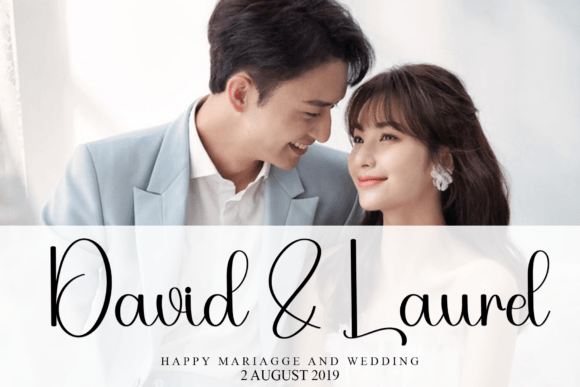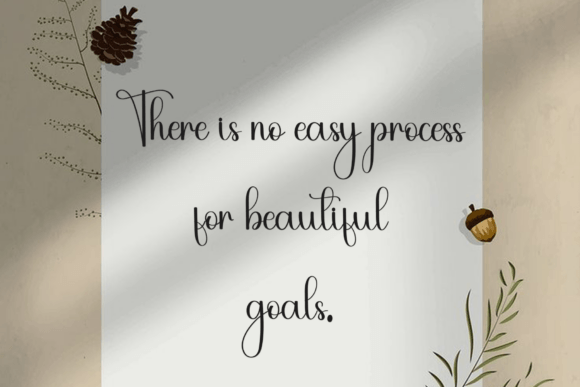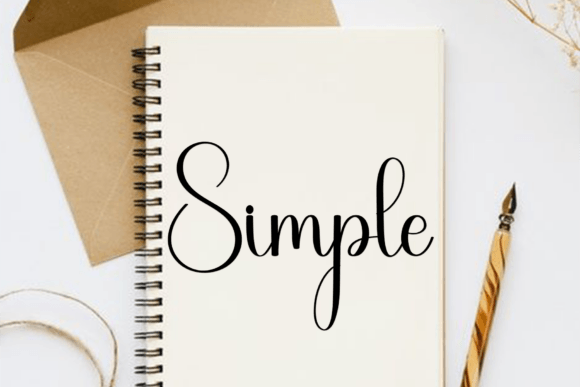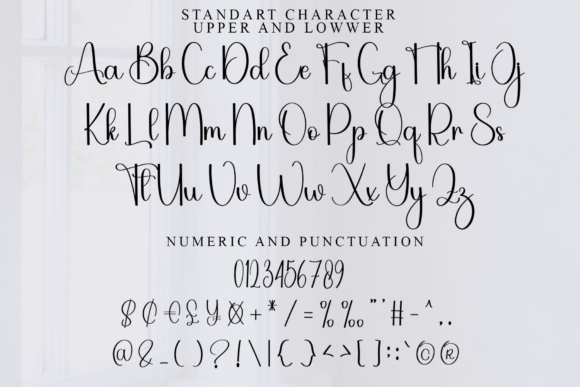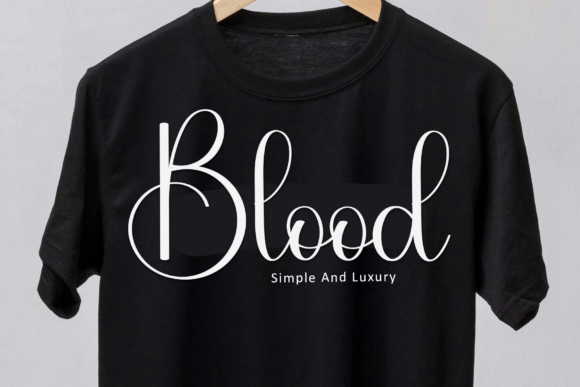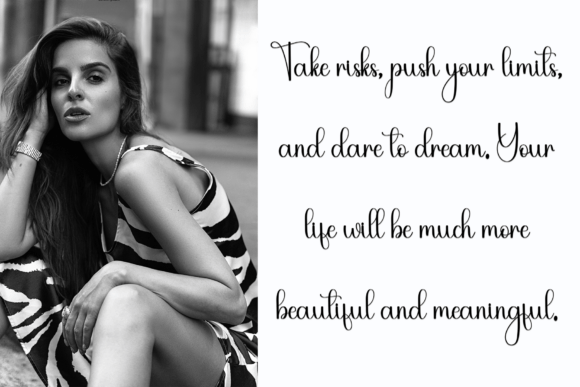
Introducing Digital: A Cute and Playful Handwritten Script Font
In the world of digital design, typography plays a crucial role in conveying the tone and personality of a project. When it comes to adding a touch of warmth and playfulness to your designs, a handwritten script font can be the perfect choice. This is where Digital comes in – a cute, handwritten script font with soft, flowing letters that can add a lighthearted and sweet feel to any project.
What is Digital Font?
Digital is a carefully crafted handwritten script font that features soft, flowing letters with a playful and sweet feel. Its unique design makes it perfect for projects that require a warm and lighthearted touch. Whether you’re working on a branding project, a children’s book, or a craft project, Digital is the ideal font to add a personal and whimsical touch.
Key Features of Digital Font
- Handwritten Script Style: Digital boasts a beautiful handwritten script style that is perfect for adding a personal touch to your designs.
- Soft and Flowing Letters: The font features soft and flowing letters that give it a warm and inviting feel.
- Playful and Sweet Feel: Digital has a playful and sweet feel that makes it perfect for projects that require a lighthearted touch.
- Highly Versatile: The font is highly versatile and can be used for a wide range of projects, from branding and advertising to crafting and scrapbooking.
Use Cases for Digital Font
Digital is a highly versatile font that can be used for a wide range of projects. Here are some use cases where Digital can shine:
- Branding and Logo Design: Use Digital to create a unique and memorable brand identity that stands out from the crowd.
- Children’s Book and Educational Materials: The playful and sweet feel of Digital makes it perfect for children’s books, educational materials, and other kid-friendly projects.
- Crafting and Scrapbooking: Digital is a great choice for crafters and scrapbookers who want to add a personal touch to their projects.
- Wedding and Party Invitations: Use Digital to create beautiful and unique wedding and party invitations that set the tone for a special celebration.
Tips for Using Digital Font
Here are some tips for using Digital font effectively in your designs:
- Pair with Other Fonts: Experiment with pairing Digital with other fonts to create a unique and visually appealing typography combination.
- Adjust Font Size and Color: Play around with different font sizes and colors to find the perfect combination that suits your design.
- Add Texture and Patterns: Consider adding texture and patterns to your design to give it a more organic and handmade feel.
Digital is a beautiful and versatile handwritten script font that can add a lighthearted and sweet feel to any project. With its soft, flowing letters and playful feel, Digital is perfect for designers and crafters who want to add a personal touch to their designs. Whether you’re working on a branding project, a children’s book, or a craft project, Digital is a great choice for anyone looking for a unique and whimsical font.